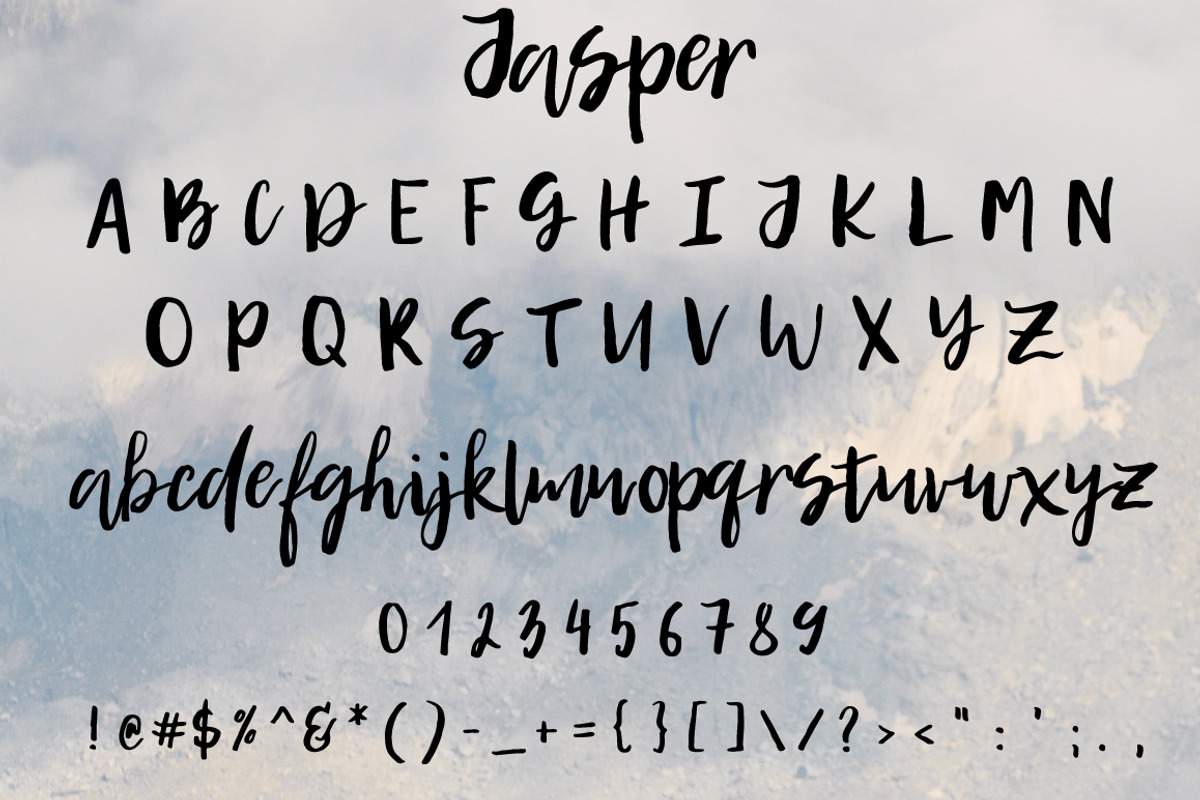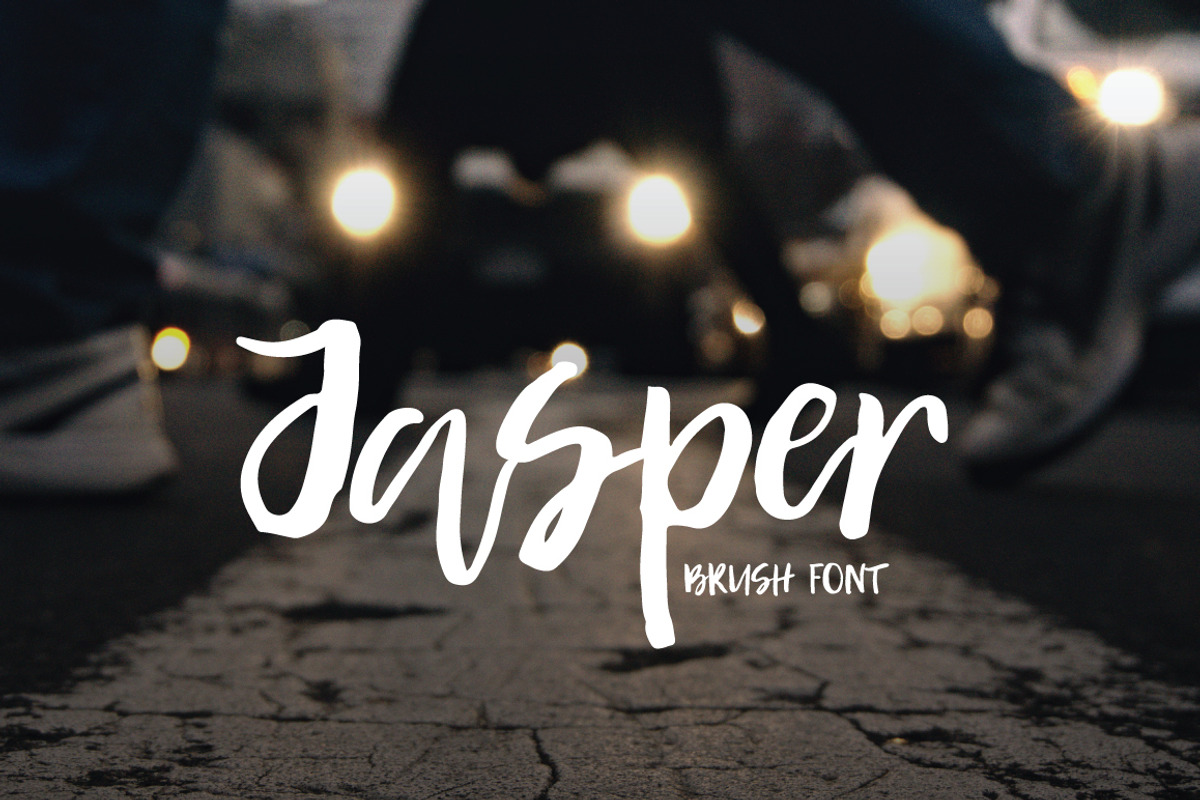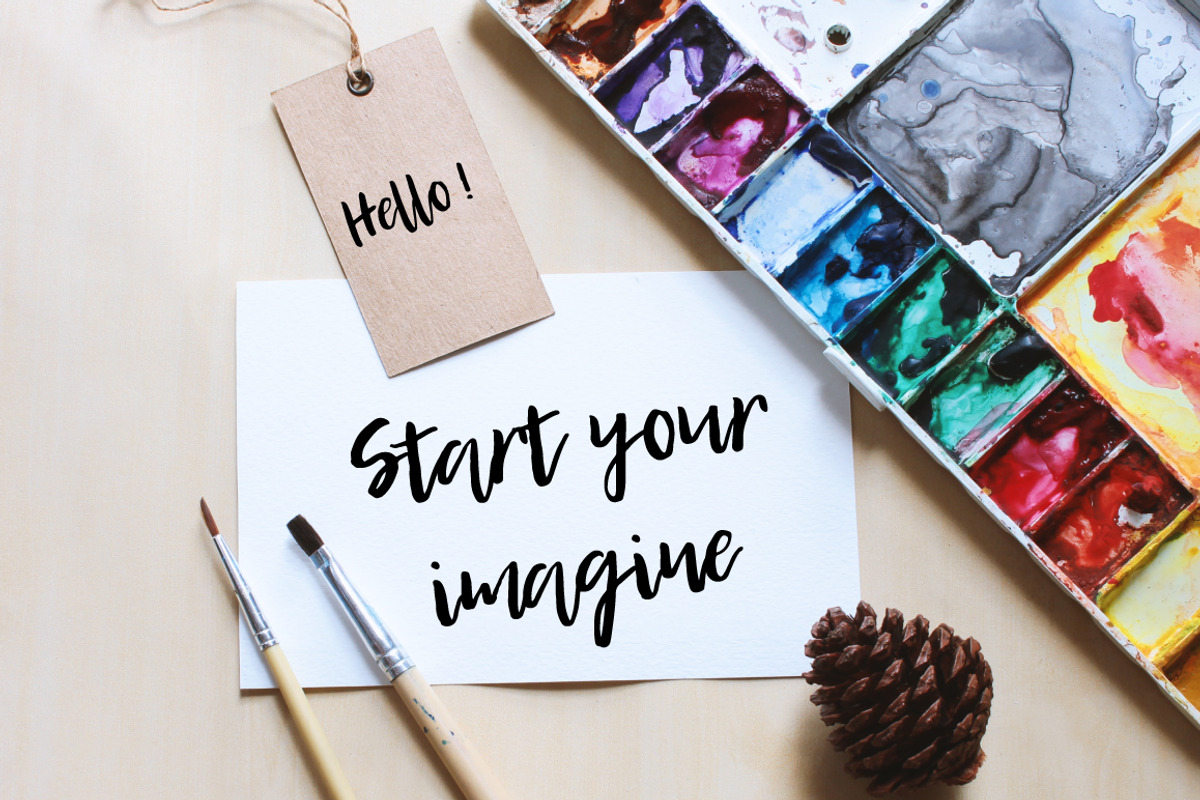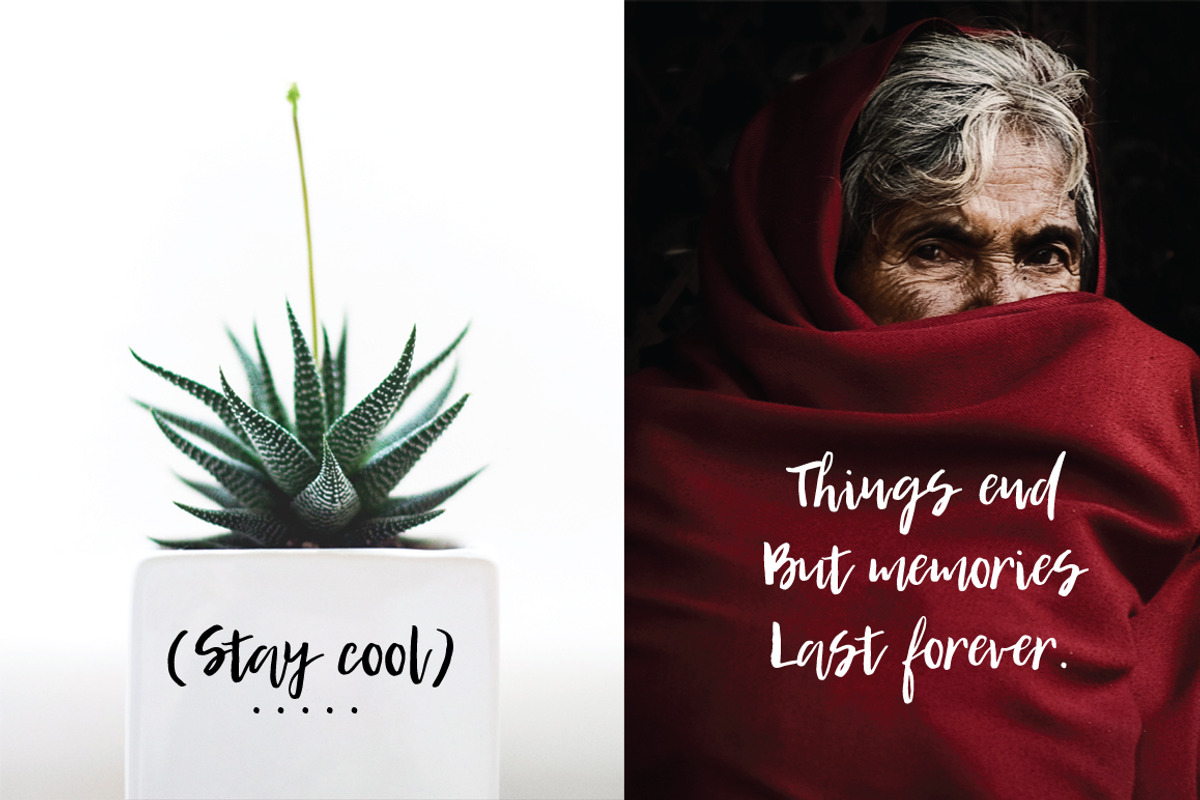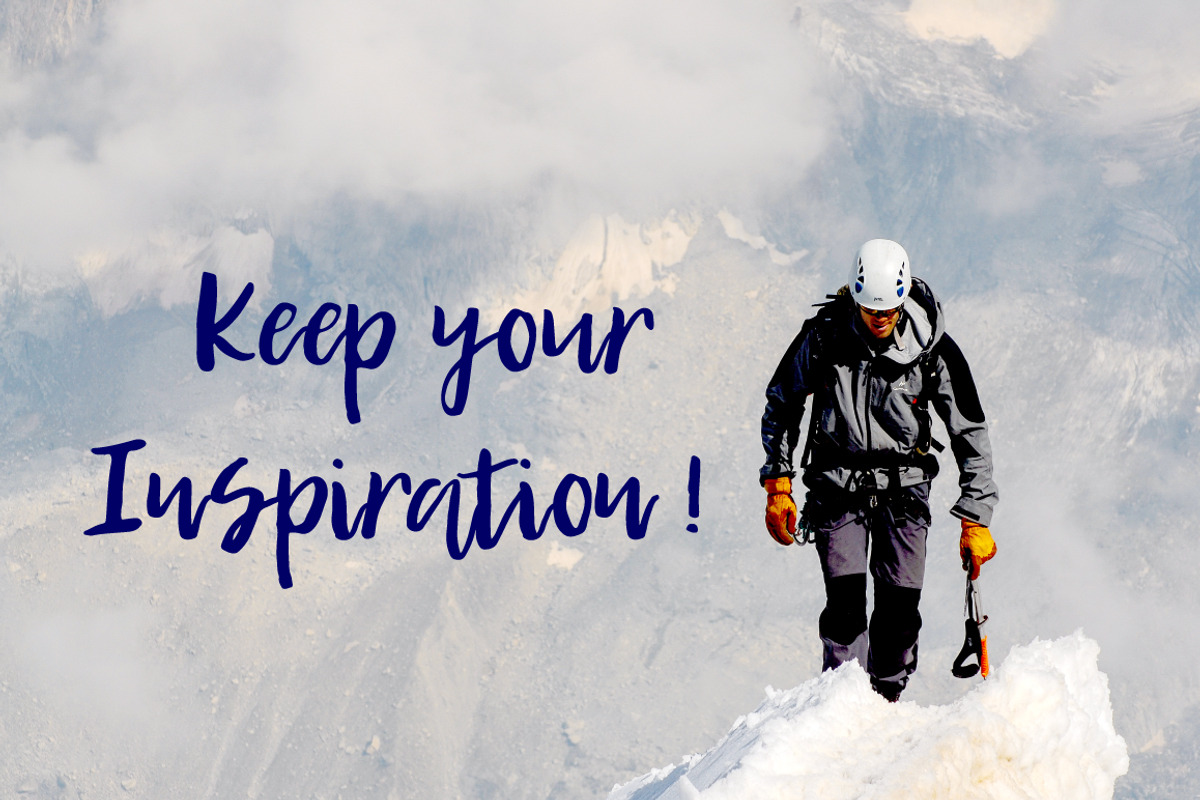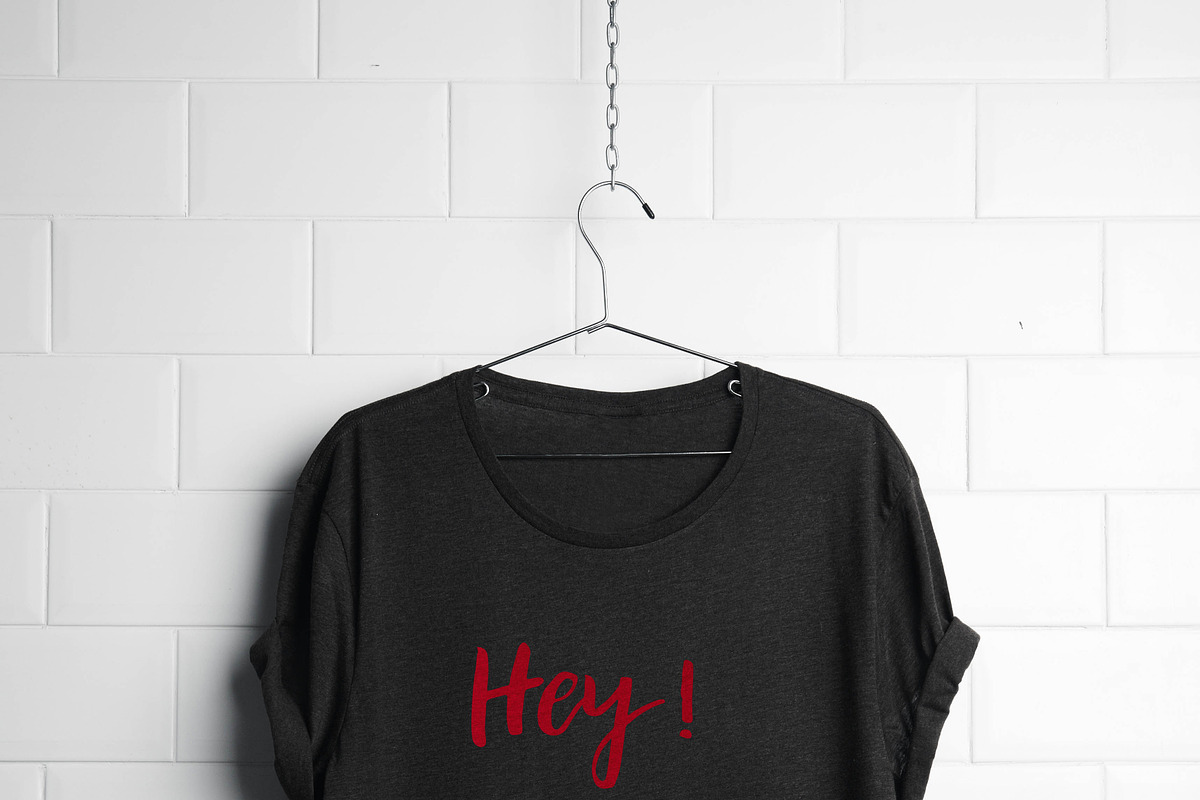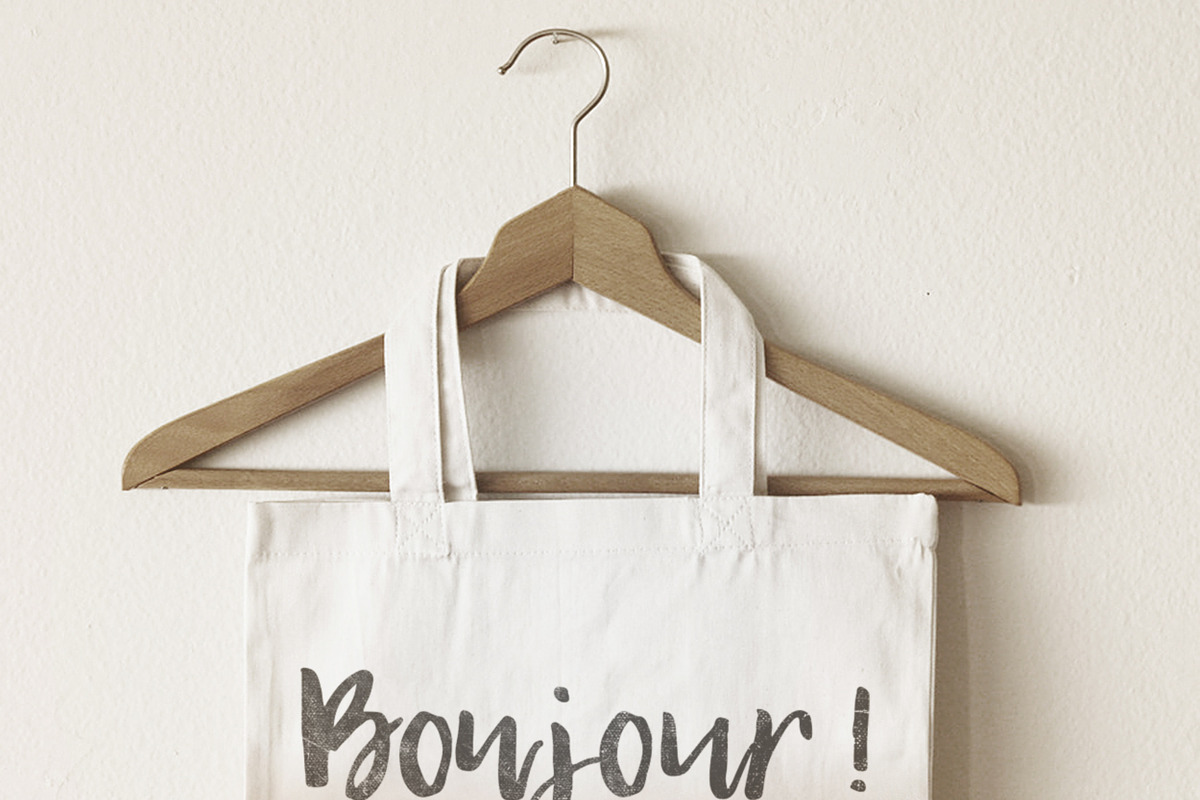
Jasper | Brush Font
It's handwritten Brush font. This font is ideal for branding and decorate your any project.
This font are perfect for your project , wedding invitation , your blog. Also with help you can create a logo or beautiful frame for your home. Or just use for your small business, book covers, stationery, marketing, magazines and more.
Jasper | Brush Font by Artstudio fits naturally into Branding, posters, packaging, typography.